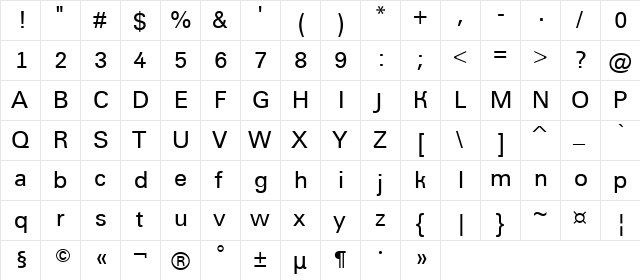
a_Grotic Regular Font Preview
a_Grotic Regular
Design Context for a_Grotic Typeface
a_Grotic is a composed and adaptable typeface that performs quietly and consistently across a wide range of design contexts.